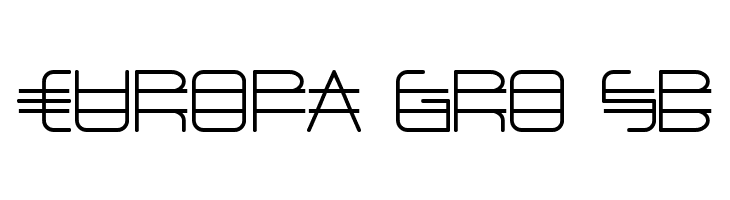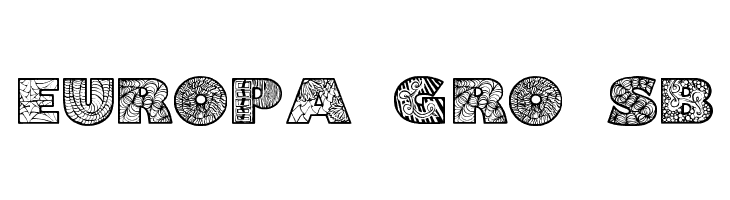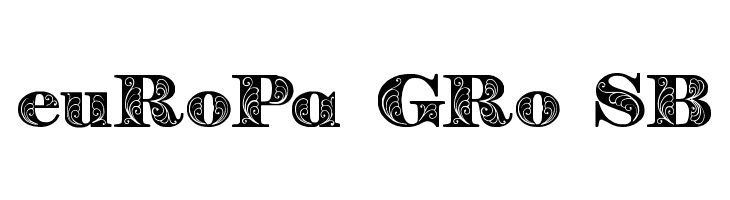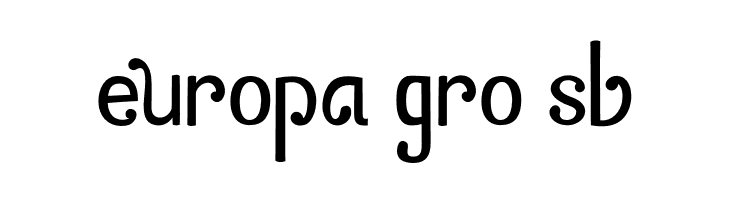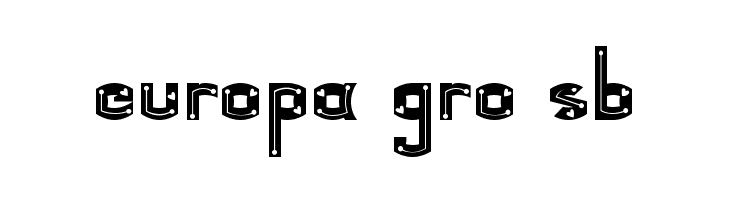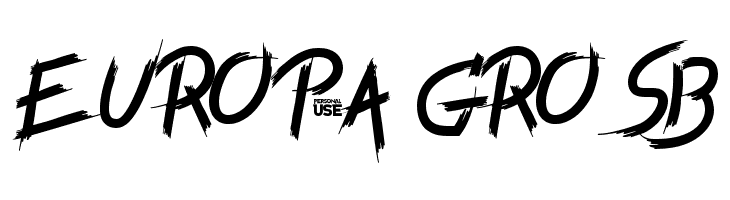
A bold, geometric font with angular letterforms and a strong, modern aesthetic.
A bold, geometric font with a futuristic and modern aesthetic.
A bold, angular font with a modern, geometric style.
A bold, decorative font with angular shapes and intricate cut-out patterns.
A playful and eclectic font with diverse character styles and bold numbers.
A bold, edgy font with sharp, brush-like strokes.
A whimsical and decorative font with playful curls and swirls.
A decorative font with intricate patterns and textures, ideal for creative projects.
A futuristic, geometric font with monolinear strokes and a digital aesthetic.
An ornate and decorative font with intricate swirls, ideal for vintage-themed projects.